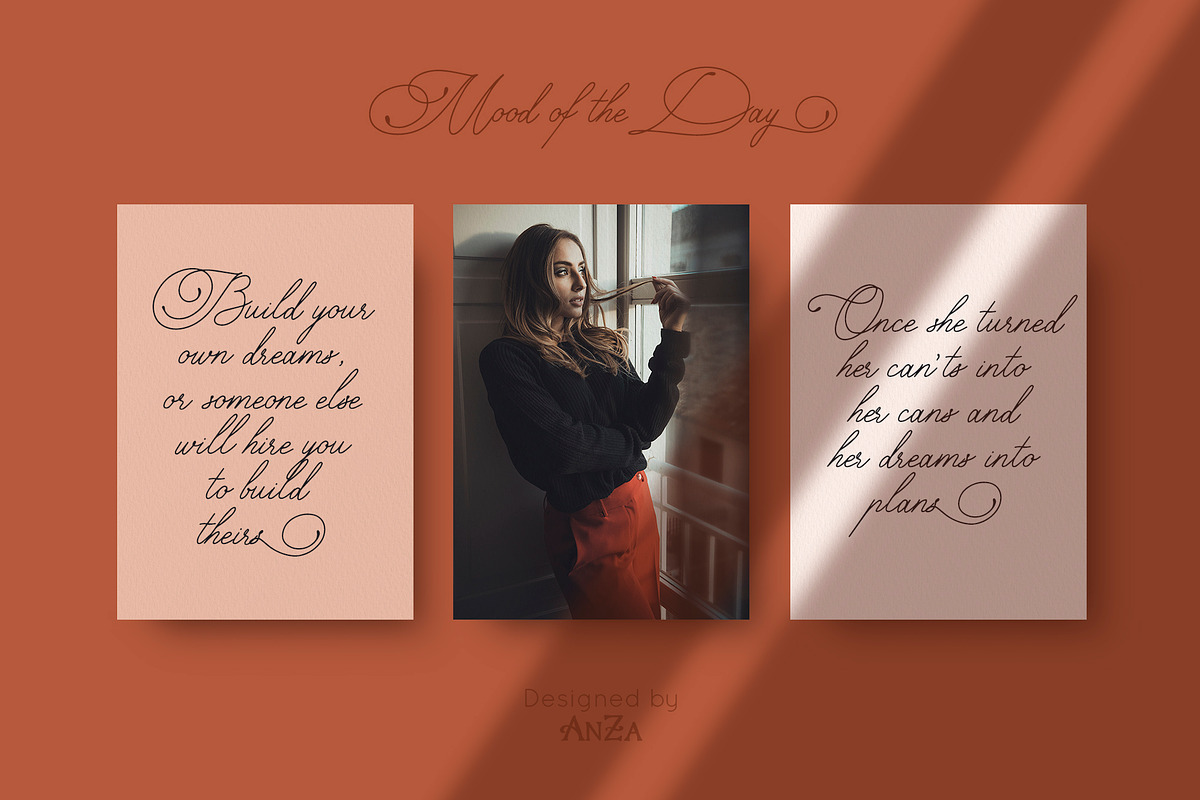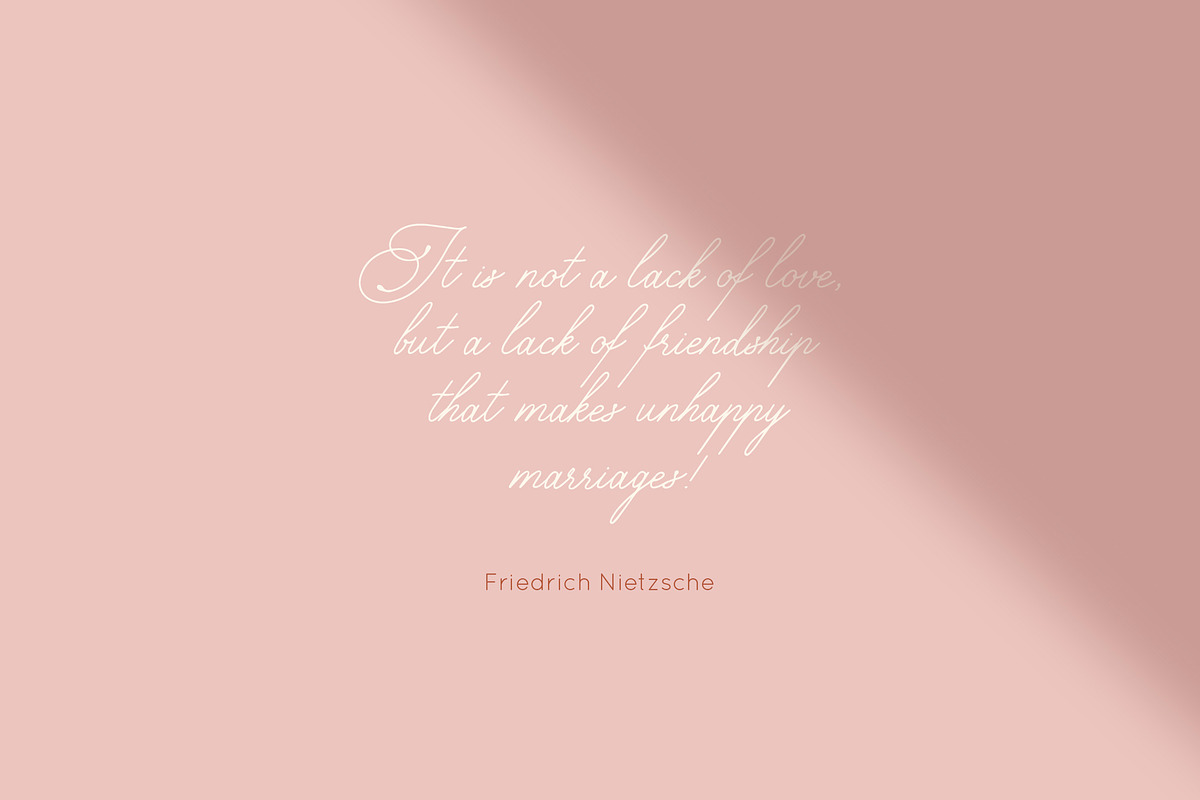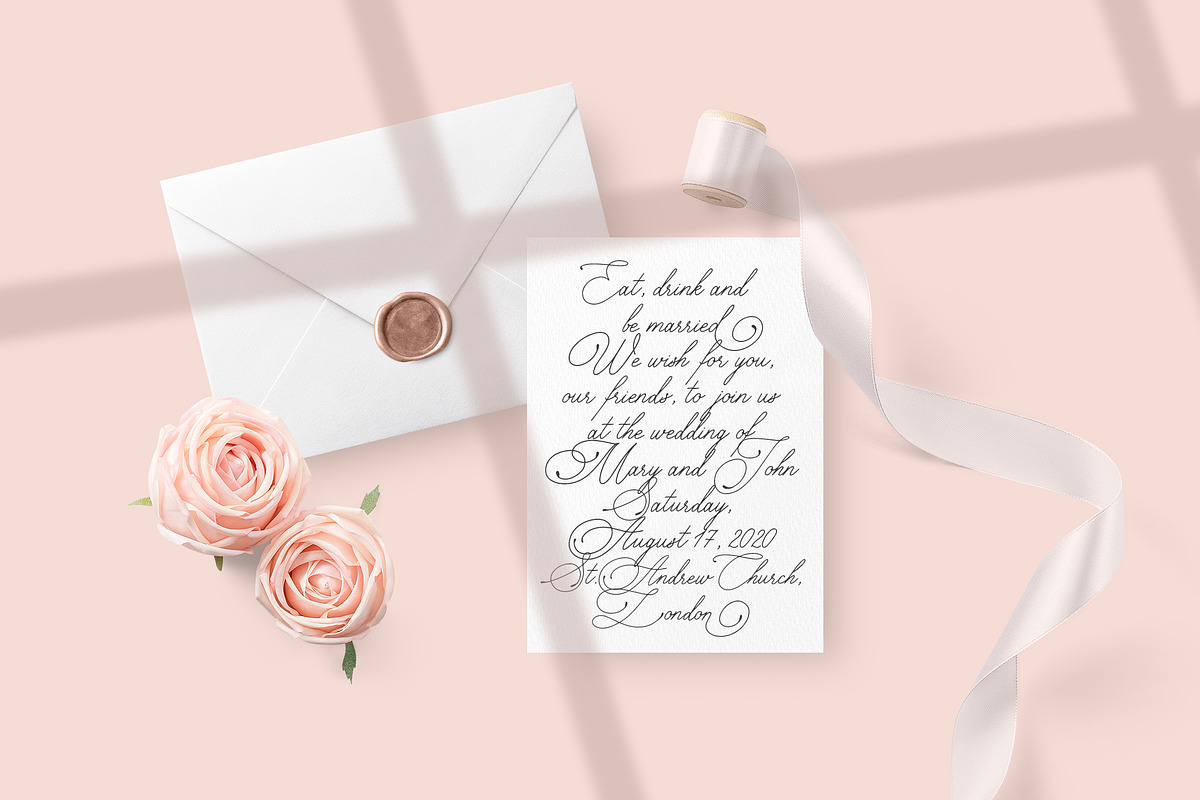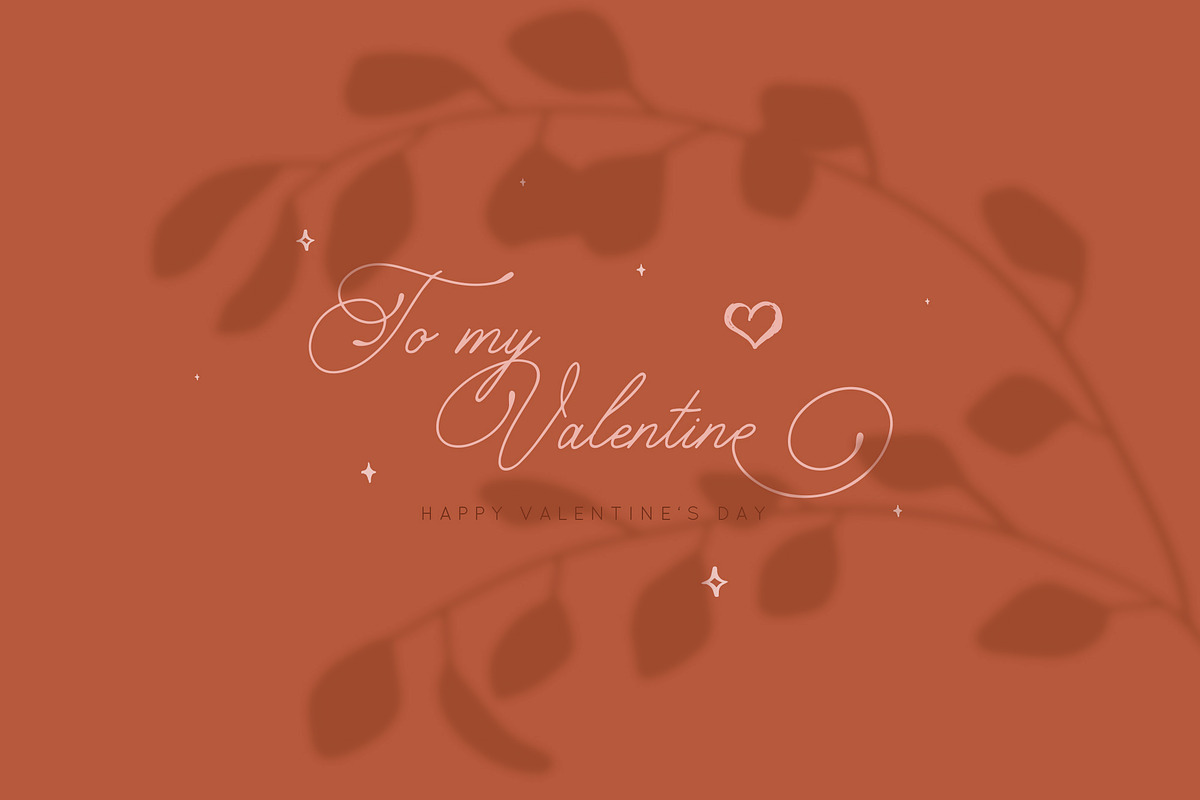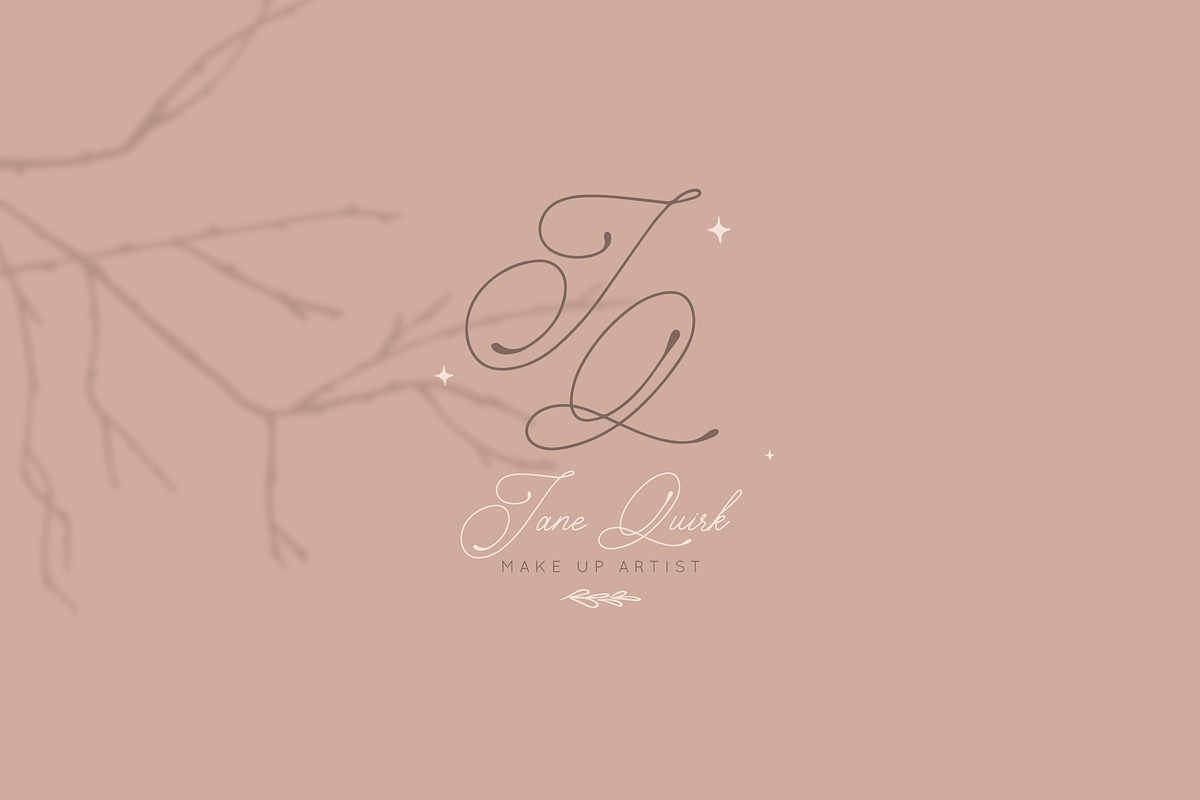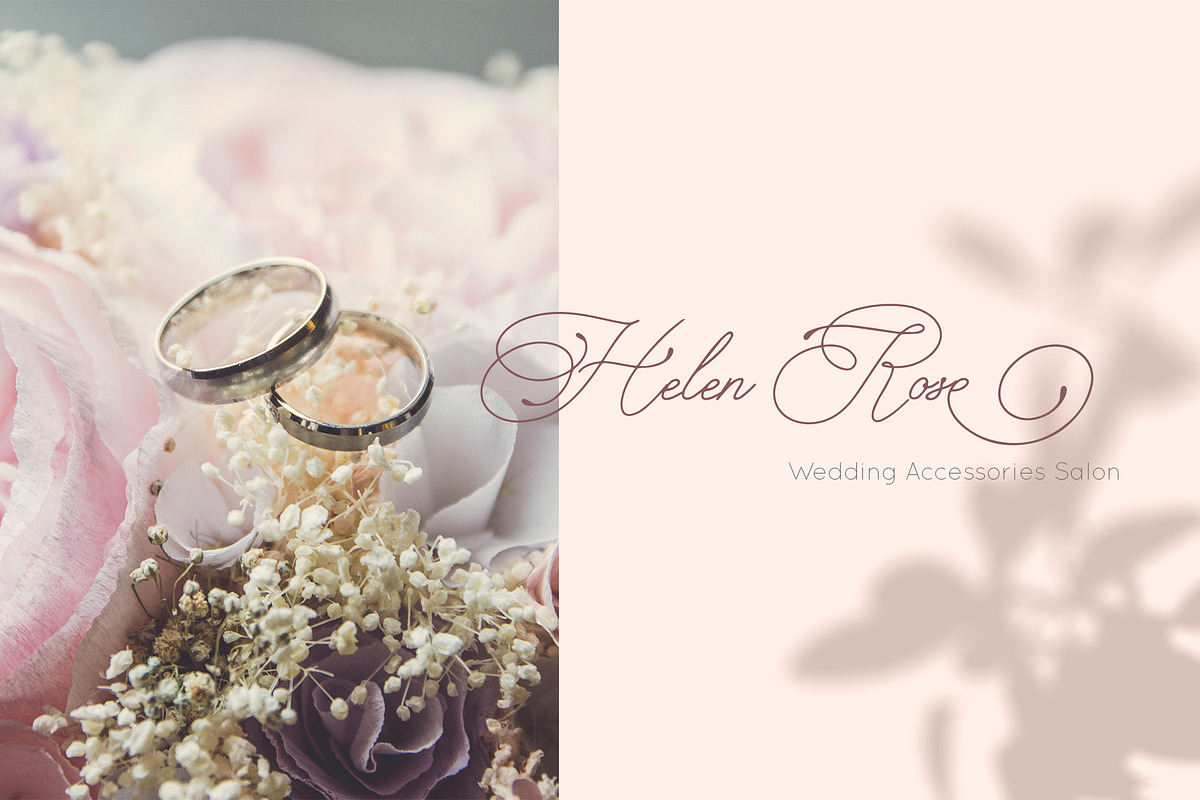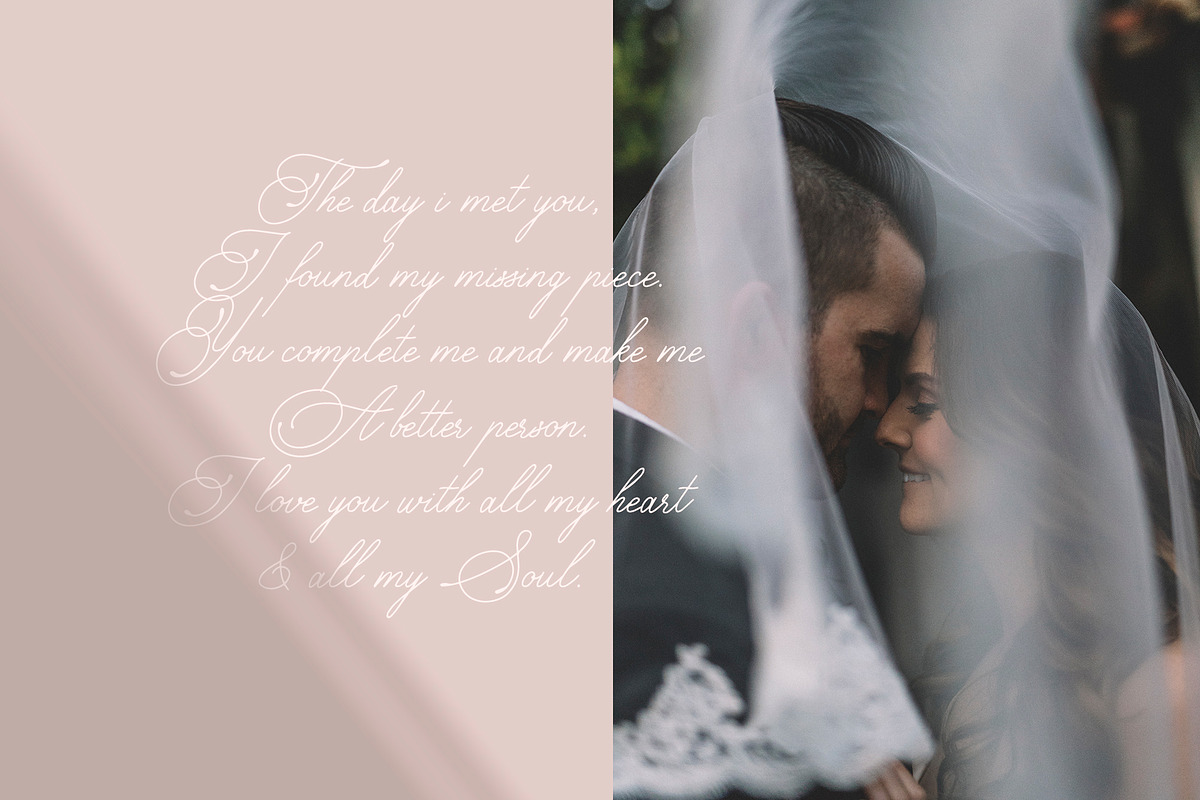
Lovely Monoline Script Font
Explore my new delicate monoline calligraphy script font Lovely which will help to create stunning design with a touch of elegance and romance. This script font is perfect for multiple contexts. Works great in mood boards, posters, logos, headlines, packaging, advertising, branding and so much more.
Lovely font has uppercase and lowercase letters, numbers & basic punctuation, built with Open Type features (lowercase alternates as stylistic endings).
This font currently only English supports, but the following accents are included: ¨ ˜ ´ ˆ ` ˚ ¸